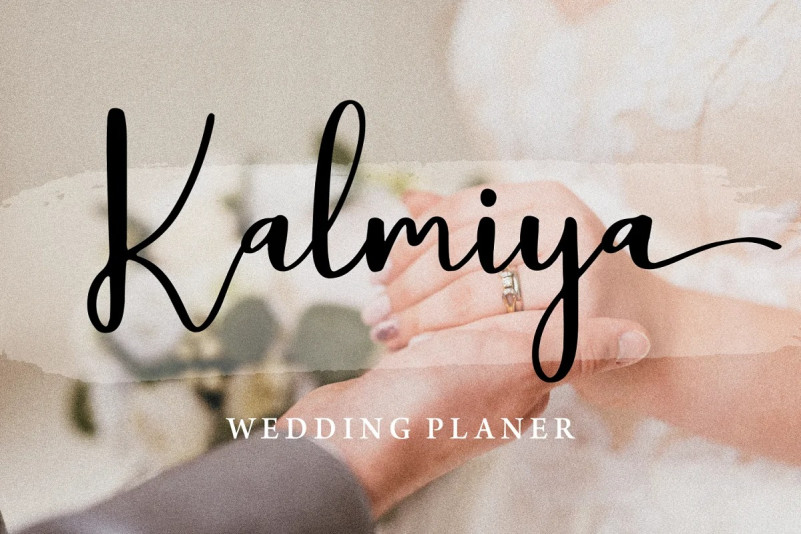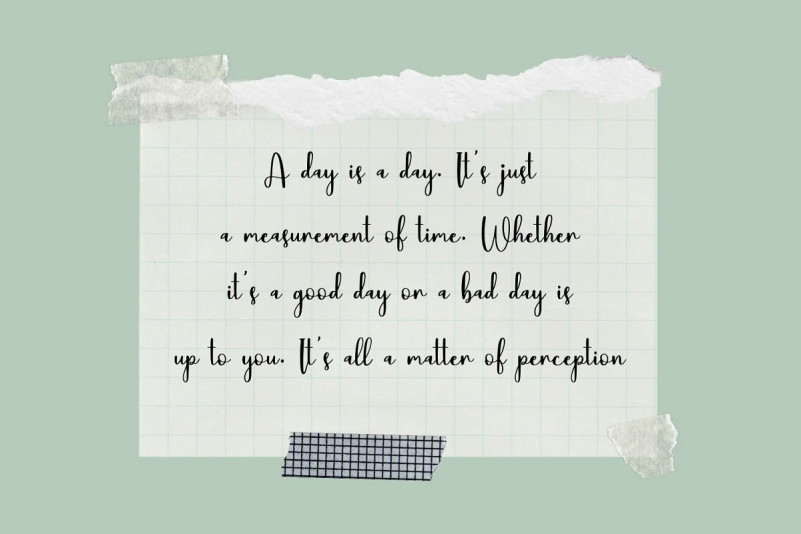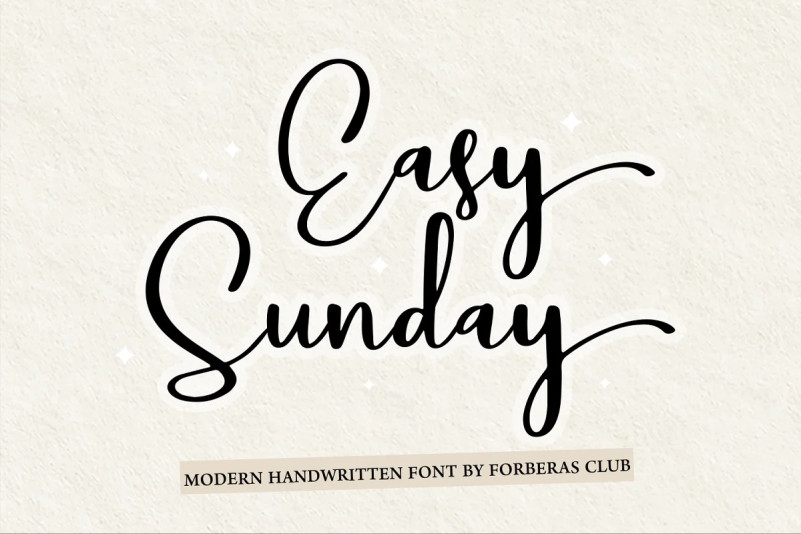
Easy Sunday Font
Easy Sunday Script Font is a Handwritten Script font that will make your designs look classic, Farmhouse, Boho, and Feminine. It is a great font for events, Wedding Project, fashion, apparel projects, signature, album covers, logos, branding, magazines, social media posts, advertisements, but it also works great for other projects. Add it to your fonts’ library, and it will enhance your creativity!